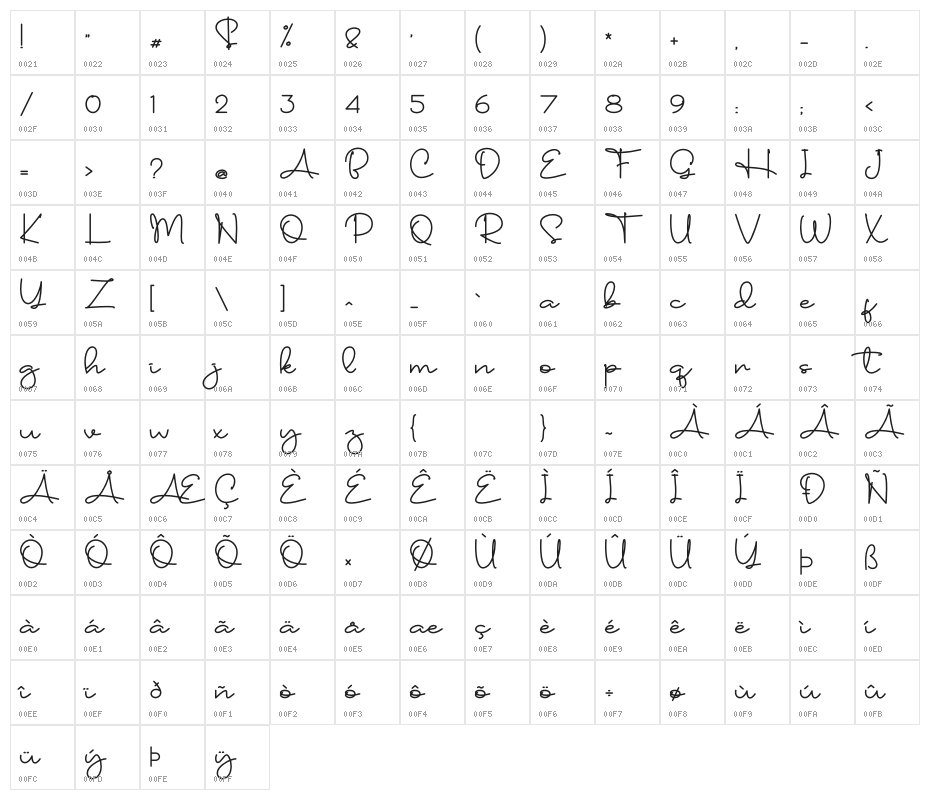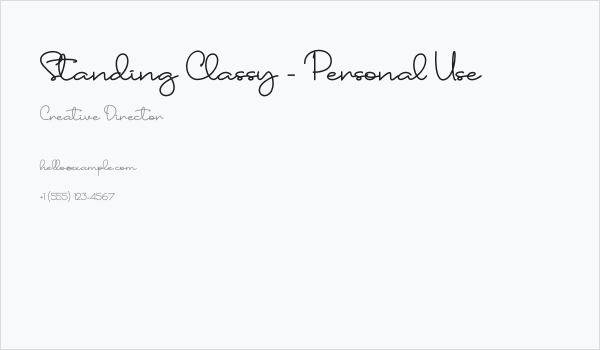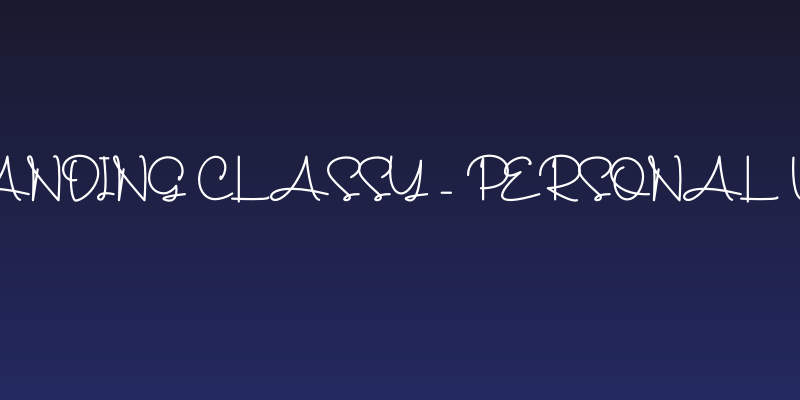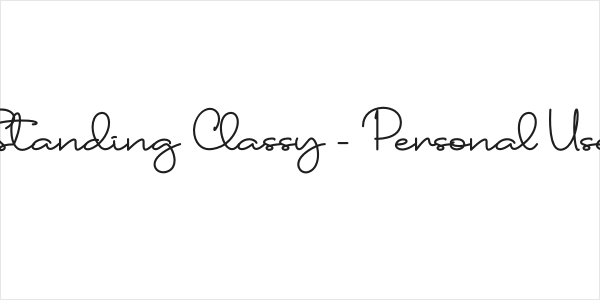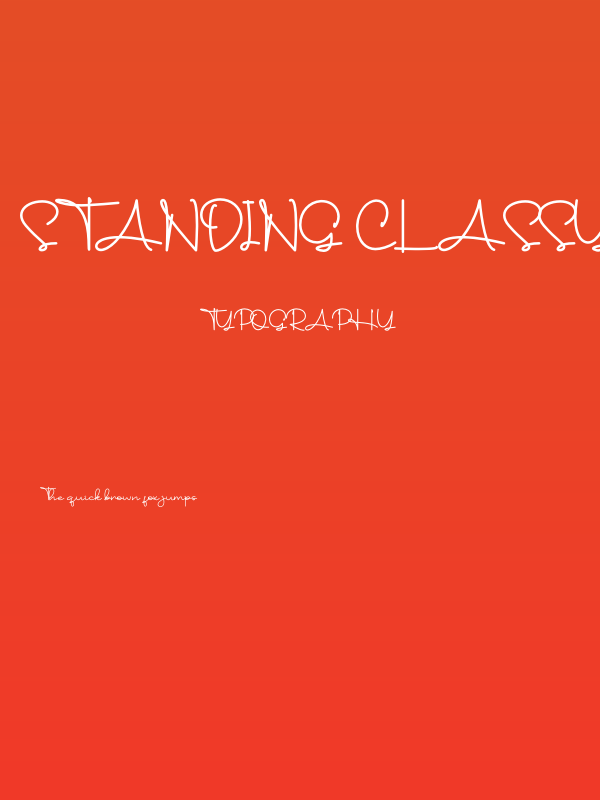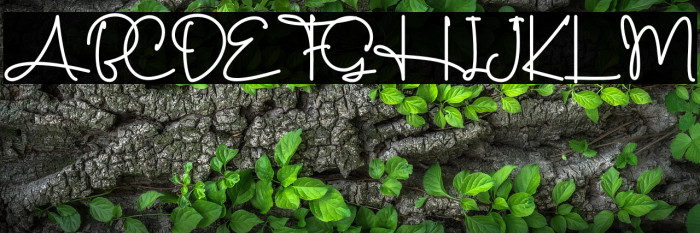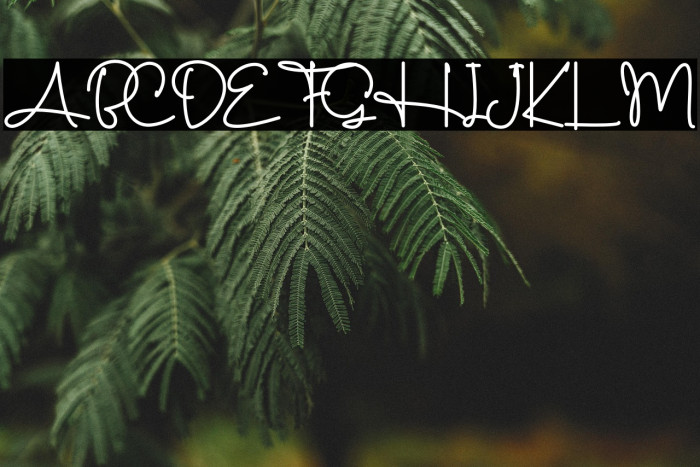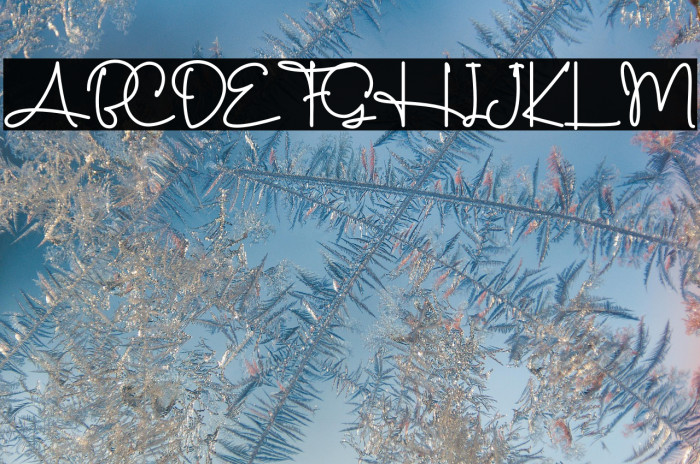
Standing Classy - Personal Use Font
Standing Classy - Personal Use Description
This font exudes a sophisticated and elegant style with its flowing, cursive script. The uppercase letters are tall and slender, featuring delicate loops and swirls that add a touch of grace. The lowercase letters maintain a consistent flow, with some characters connecting seamlessly to others, enhancing the script's fluidity. The numerals are distinct yet harmonious with the overall design, while the special characters retain the same elegant flair. This font is perfect for projects that require a personal and classy touch, such as invitations, greeting cards, or branding materials.
| Proposed Projects | Ideal for wedding invitations, personal branding, elegant stationery, and upscale packaging. |